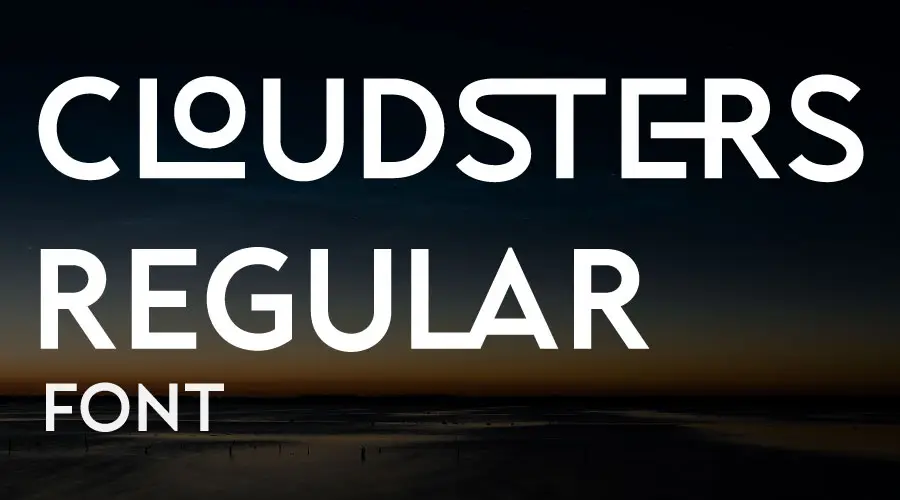
Cloudsters Regular font is a modern, free display font created by Israel-based graphic designer Sarid Ezra and published in 2020.
Cloudsters Regular font
Cloudsters Regular | Original
This single-style OpenType sans-serif typeface features unique ligatures and a minimalist aesthetic, utilizing negative space to create distinctive shapes. Supporting numerous languages, punctuation, and numbers, it’s compatible with Windows, Mac, and Linux.
The font is ideal for clean, contemporary logotypes and branding materials, adding a creative touch to graphic design projects. Its versatility makes it especially suitable for small spaces or typography that needs to stand out.